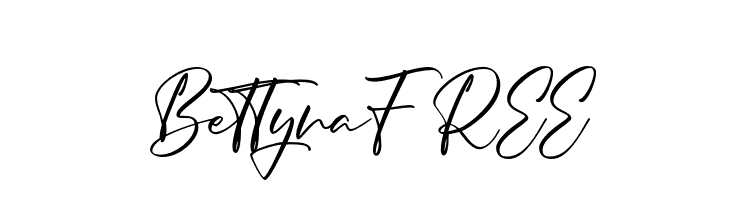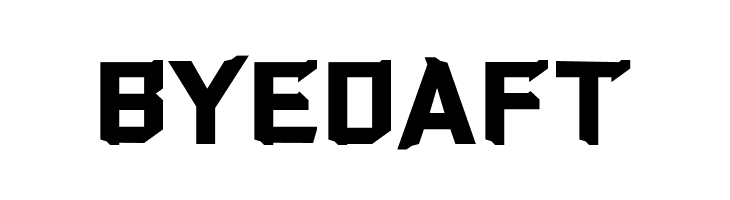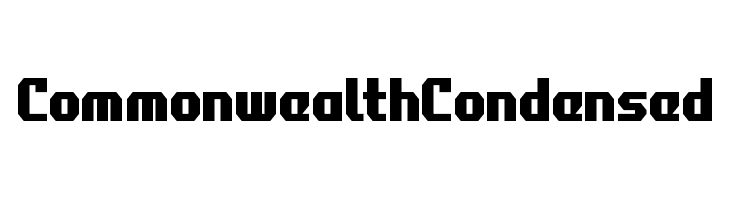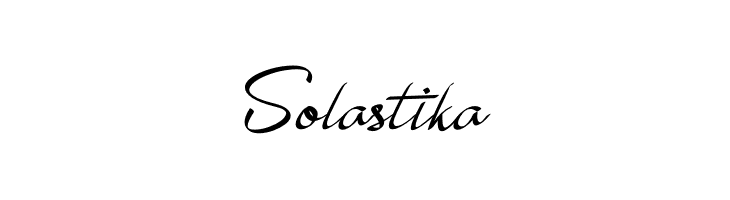
An elegant, flowing script font with connected letterforms and a sophisticated style.
A bold, geometric, and condensed font with a strong, angular design.
A modern, industrial font with bold outlines and geometric shapes.
A dynamic handwritten font with fluid, expressive strokes.
A bold, futuristic font with geometric cut-out designs.
A lively and elegant script font with smooth curves and moderate stroke thickness.
A bold serif font with strong strokes and elegant curves, exuding a classic Roman influence.
A flowing, cursive script font with elegant curves and a sophisticated style.
A bold, geometric sans-serif font with a modern and professional appearance.
A bold, decorative font with a vintage marquee light bulb effect.